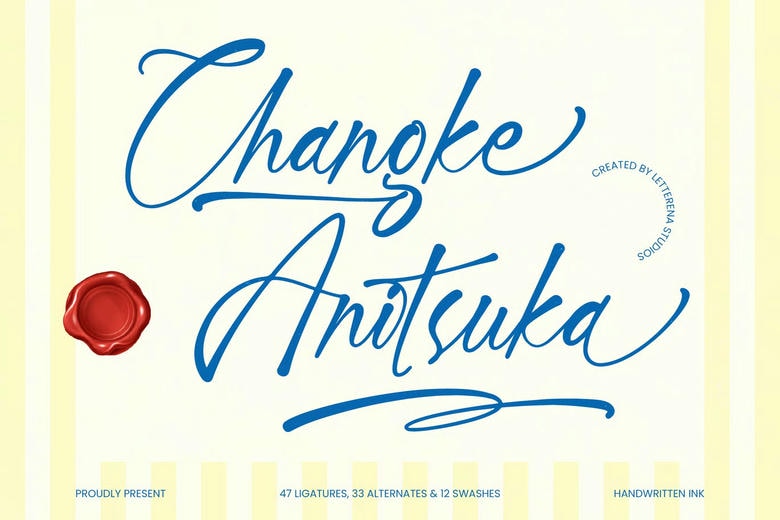
Changke Anitsuka Font
Changke Anitsuka – Handwritten Ink is a typeface designed to bring a sense of raw elegance and craftsmanship to your work. Its style reflects the smooth movement of a skilled pen, combining natural textures with a polished look.
Changke Anitsuka – Handwritten Ink is built with strong typographic design, helping your work appeal both locally and internationally. Its wide multilingual support means it works well for projects in many different languages and markets.
Changke Anitsuka Handwritten Font